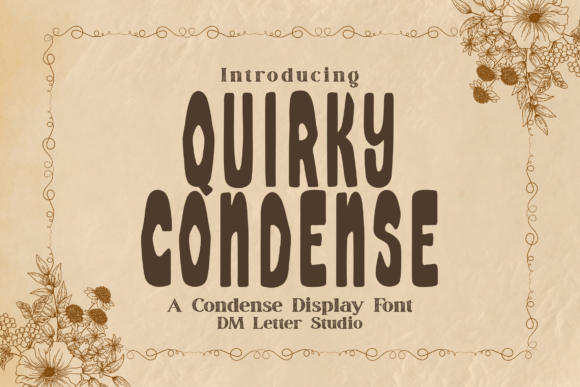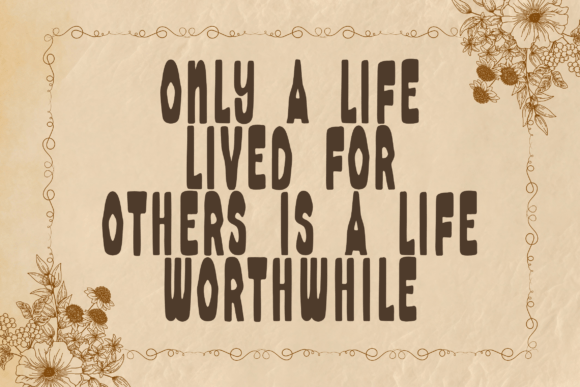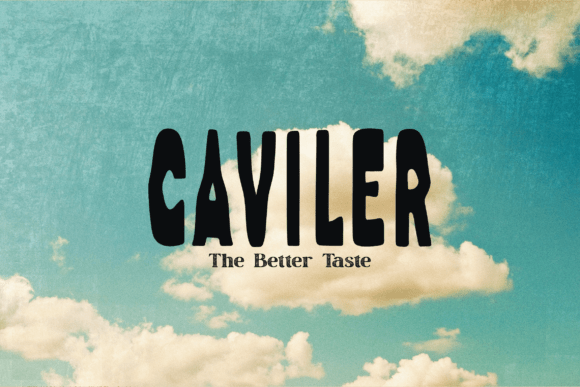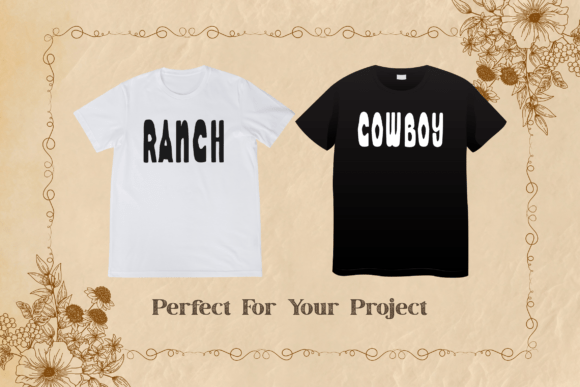
Quirky Condense Font
About the Quirky Condense Font
The wait is over! The incredible Quirky Condense Font is now available for your design toolkit. Quirky Condense is a charmingly playful condensed font that brings a fresh and lighthearted vibe to any project. With its tall, narrow letterforms and quirky styling, this font is ideal for designs that need both character and space efficiency. Whether you’re working on posters, branding, t-shirts, or quirky quote designs, Quirky Condense adds a cheerful, modern twist.
Its condensed nature makes it particularly effective for headlines, short slogans, and branding elements where space is at a premium. It also works well on packaging, especially for products targeting a younger, playful demographic. However, its condensed form and quirky letterforms make it less suitable for body text or lengthy paragraphs; readability suffers at smaller sizes.
For optimal visual impact, pair Quirky Condense with a clean sans-serif like Open Sans for body copy, creating a strong contrast. Alternatively, a classic serif like Garamond can add a touch of sophistication, balancing the font’s playful energy. Avoid pairing it with other highly stylized fonts, as this can create visual clutter.
Quirky Condense projects a friendly, modern, and slightly mischievous personality. It’s ideal for brands aiming for a youthful, energetic image, perhaps in the fashion, food, or entertainment industries. Its lightheartedness should be considered when selecting a brand or project.
Quirky Condense Font Usage Examples
Quirky Condense Font Example